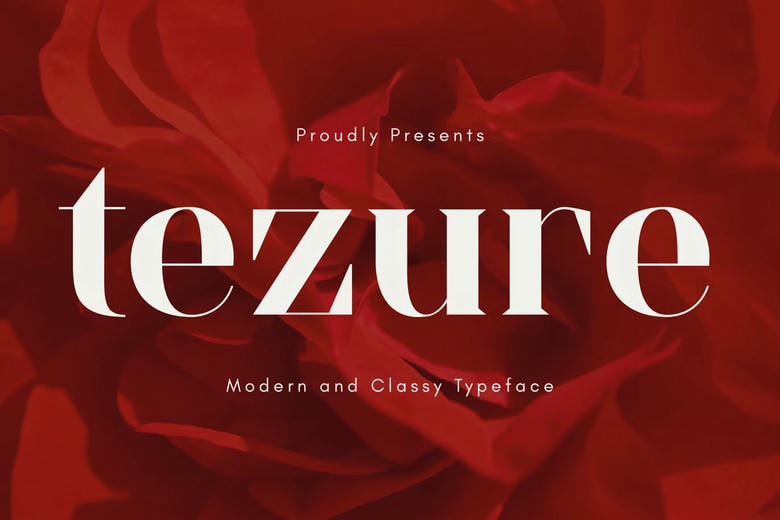
Tezure Font
Tezure Font is a luxury based serif typeface where the serif is sharp and strokes are of high contrast, the proportions are modern and the typeface is meant to attract attention and be graceful at the same time. Its sleek lines and strong terminals make it appear to have a high editorial style and would be ideal on any project that requires a classic and classy appearance. Both in their fashion campaigns, boutique branding and lifestyle editorials, Tezure provides an expressive combination of firmness and elegance.
The font was designed to enable creative professionals to take their visuals to the next level of posh, sharpness and effectiveness. Tezure adapts itself from branding identities, to packaging, to social media graphics, to the contents of magazines. Its editorial polish is a perfect match to fashion, interior and lifestyle brands, and assists designers in producing a visual authority with ease.
Tezure Serif Font